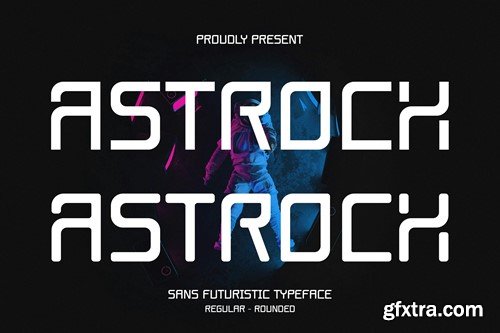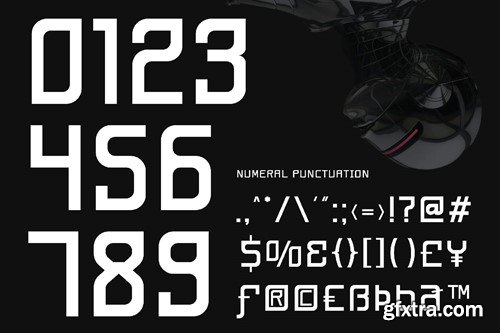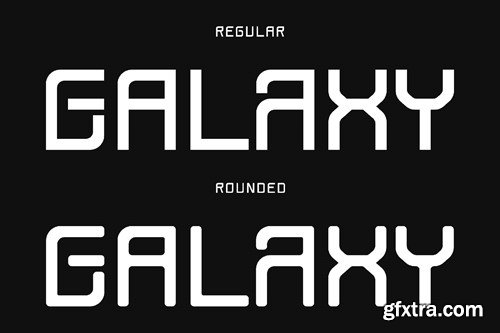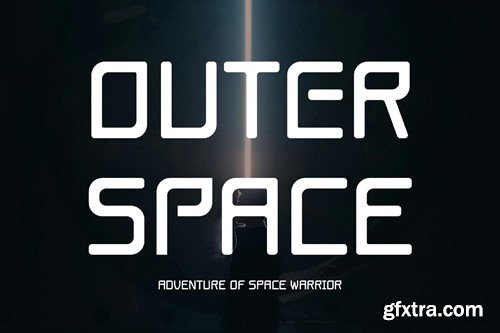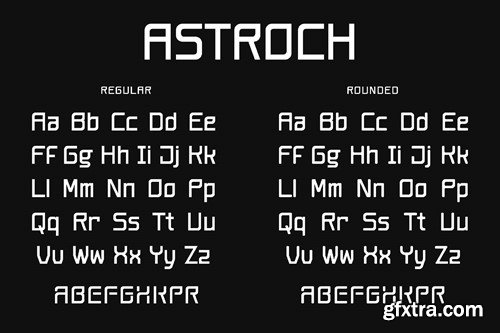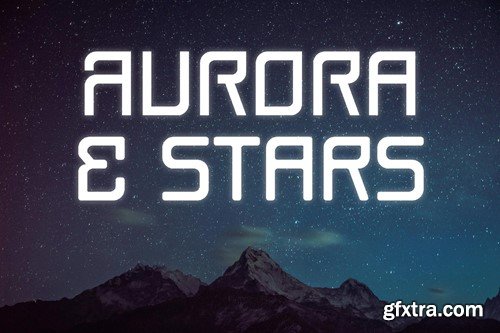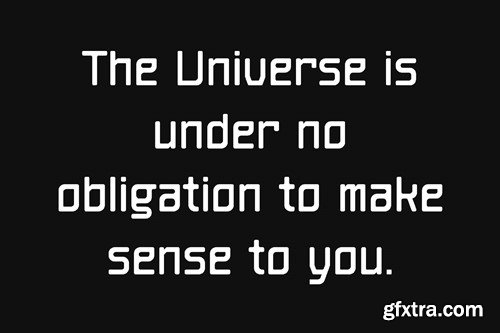
Astroch - 黑色未来风格字体 X83U45J
Astroch - Sans Futuristic Font
Astroch - Sans Futuristic Font contains a lowercase, uppercase, symbol, and also supports multi-language. There’s a lot of ligature in this font. Astroch - Sans Futuristic Font also comes with ligatures, stylistic alternates, and many more. this font is suitable for fashion, branding, catalog, and other designs that you want. File Includes :